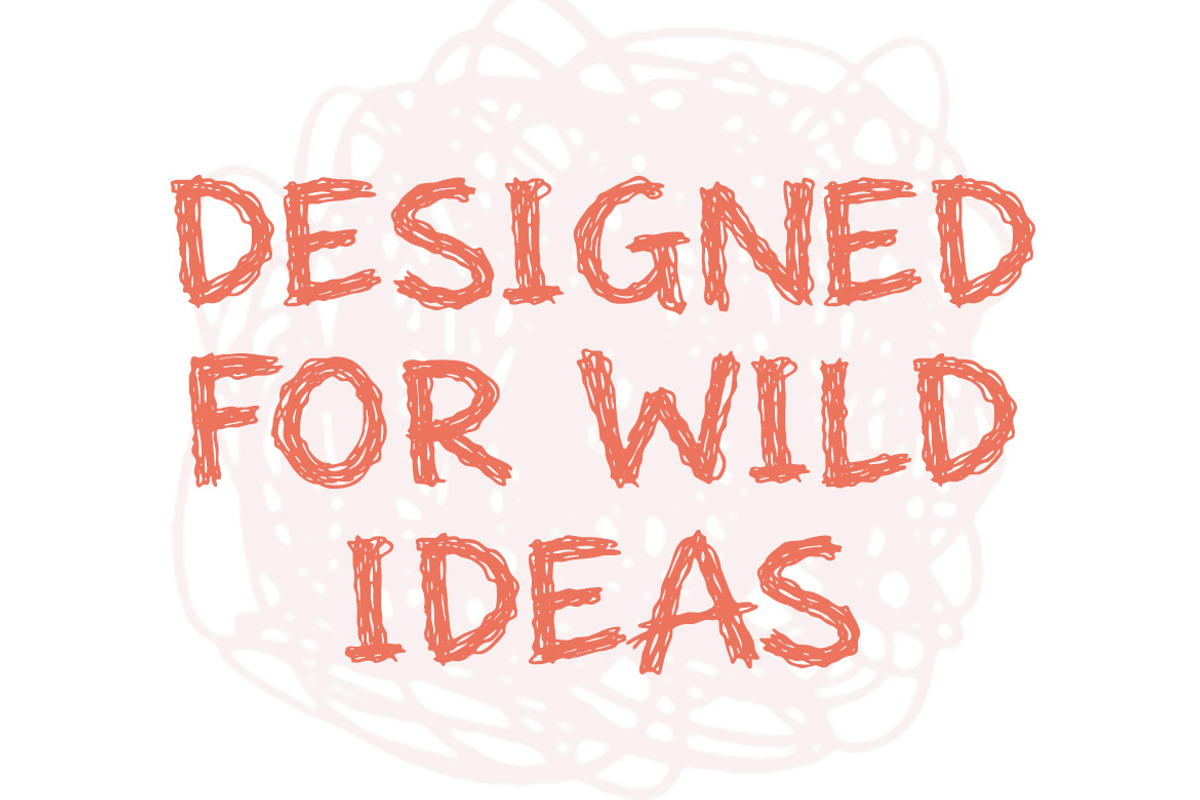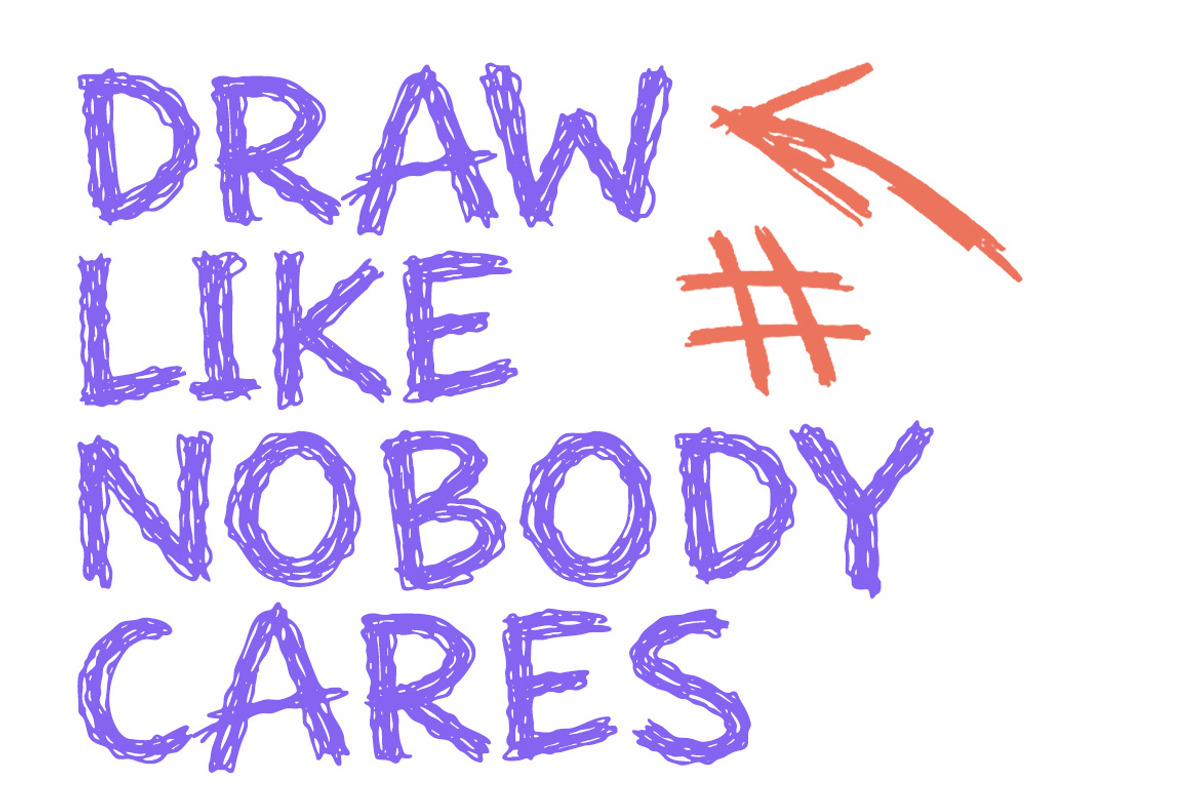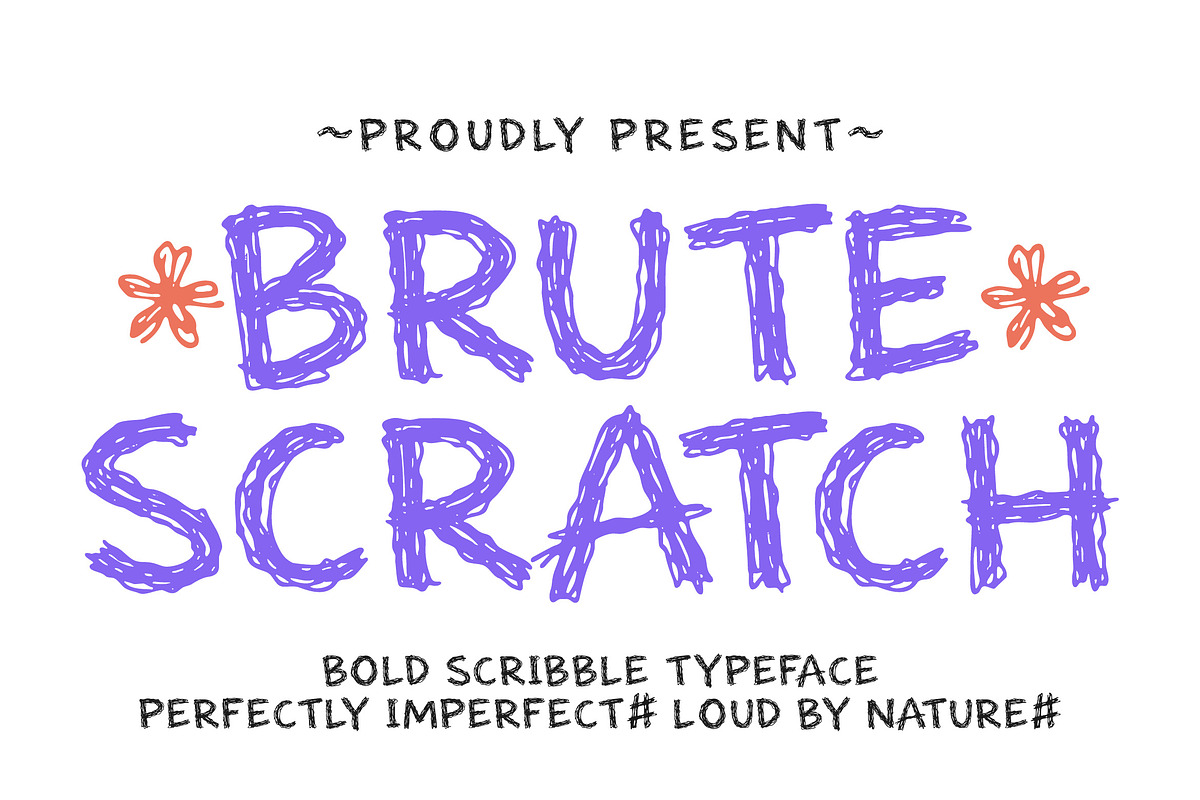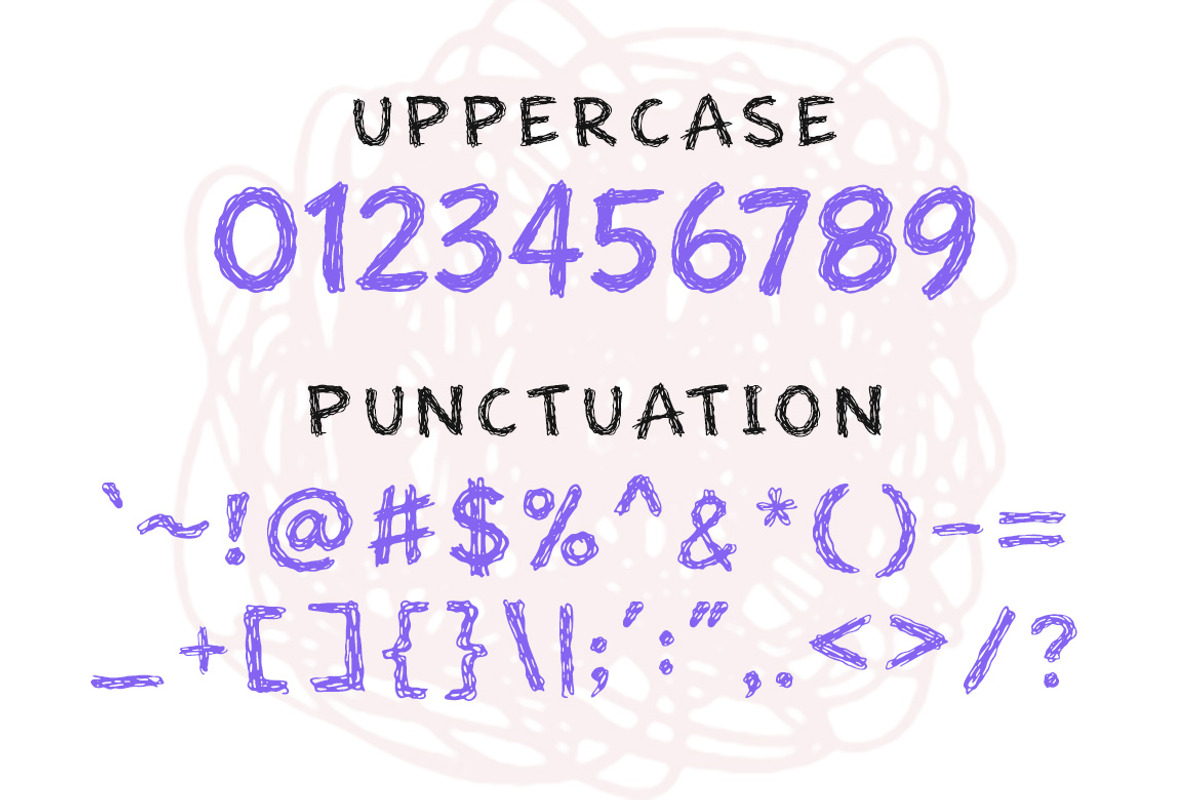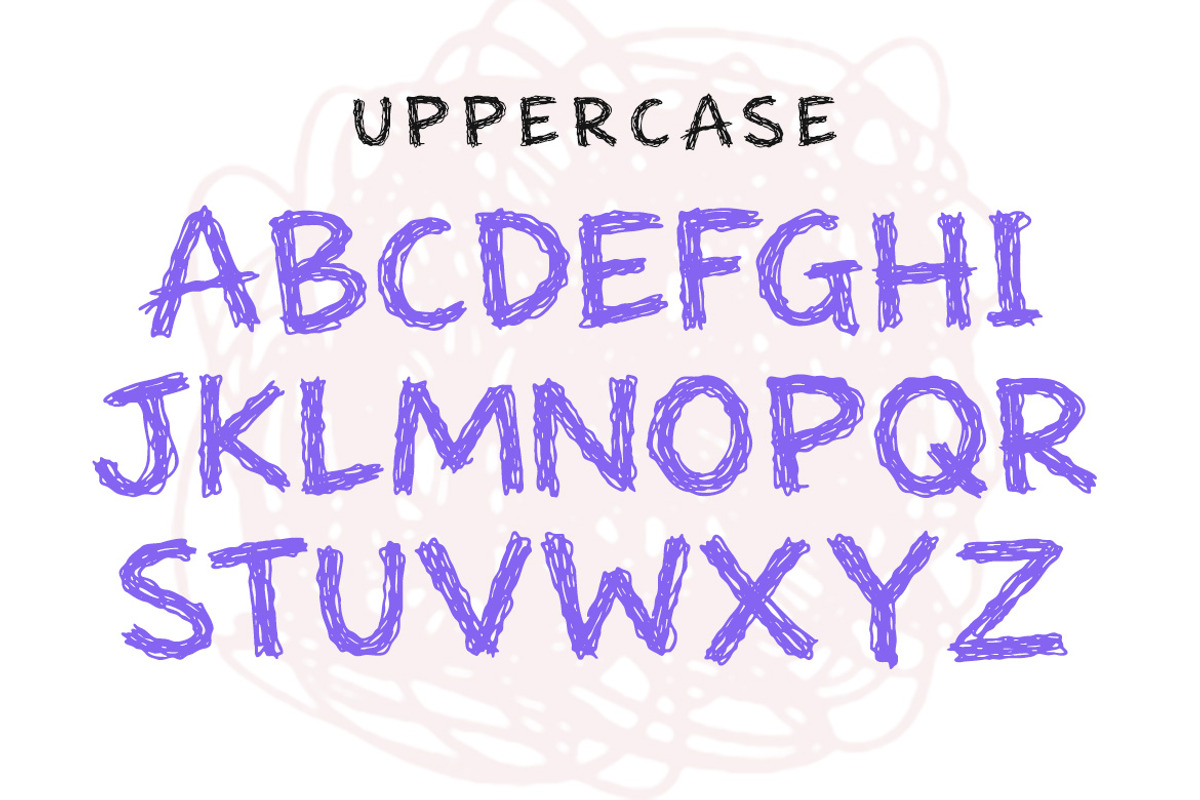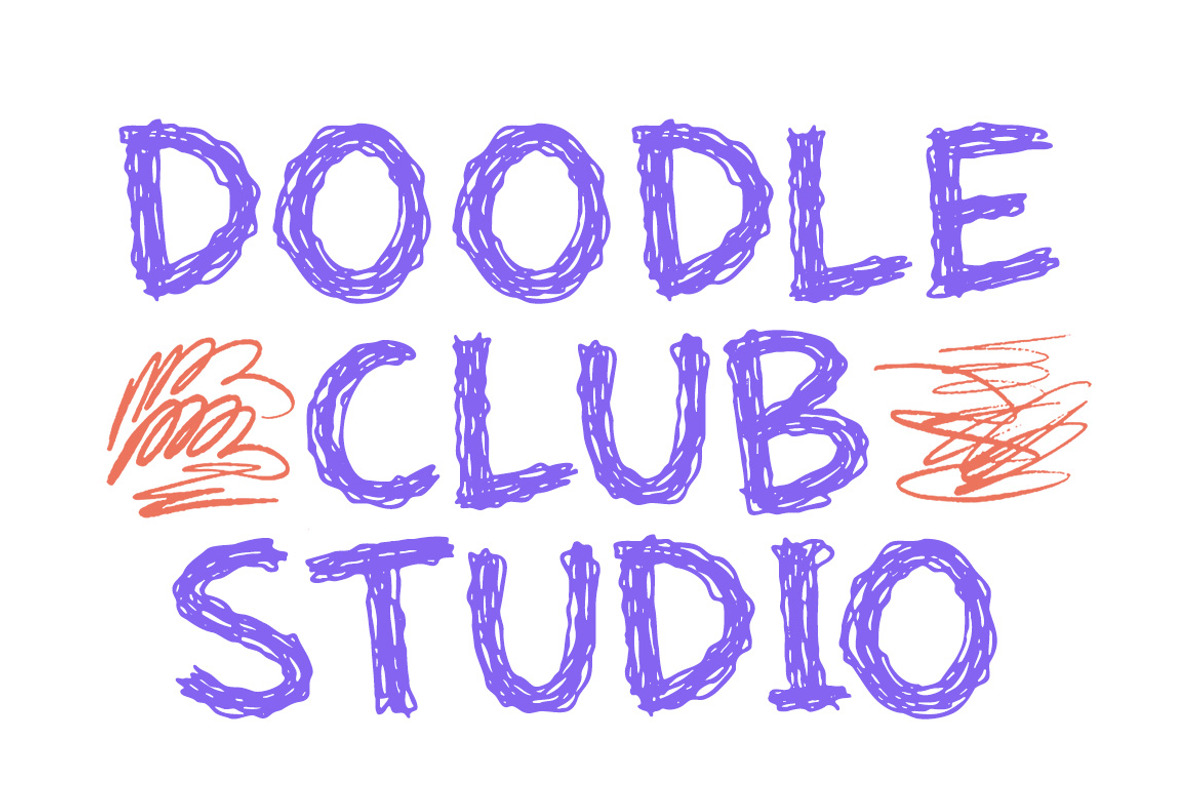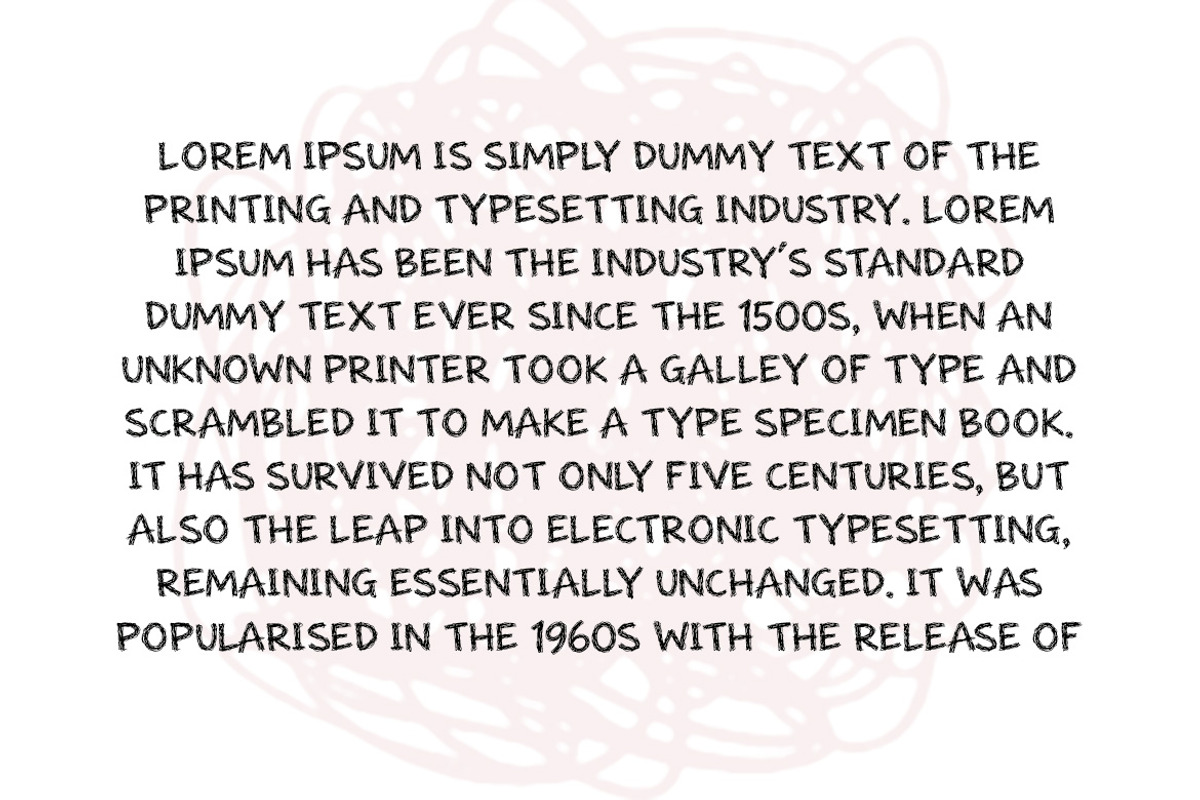
BRUTE SCRATCH – Scribble Display
BRUTE SCRATCH is a bold scribble display font that embraces raw imperfection with chaotic, hand-drawn strokes and an intentionally messy aesthetic that feels loud, expressive, and full of attitude. Built with rough sketch lines and uneven contours, this typeface delivers a rebellious, doodle-style personality perfect for posters, edgy branding, album covers, streetwear graphics, zines, and creative projects that thrive on authenticity and energy. Its layered scribble texture creates depth and motion, making every word feel alive, spontaneous, and unapologetically imperfect.